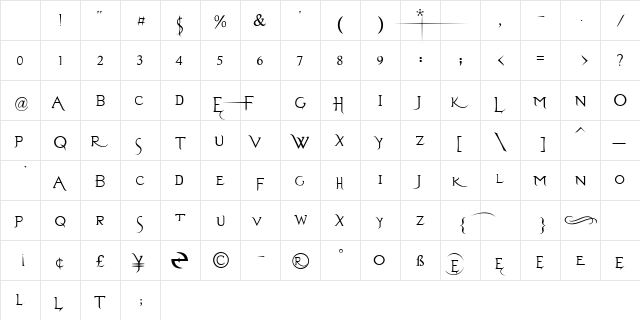
Complete Typeface  Draftlight/Aeryn/Wind-Up Records 2003. All Rights Reserved Regular glyph index. Displaying only characters natively supported by Typeface  Draftlight/Aeryn/Wind-Up Records 2003. All Rights Reserved Regular font.
Typeface  Draftlight/Aeryn/Wind-Up Records 2003. All Rights Reserved is a composed and adaptable typeface that performs quietly and consistently across a wide range of design contexts. Its slender proportions lend an understated elegance to any composition.